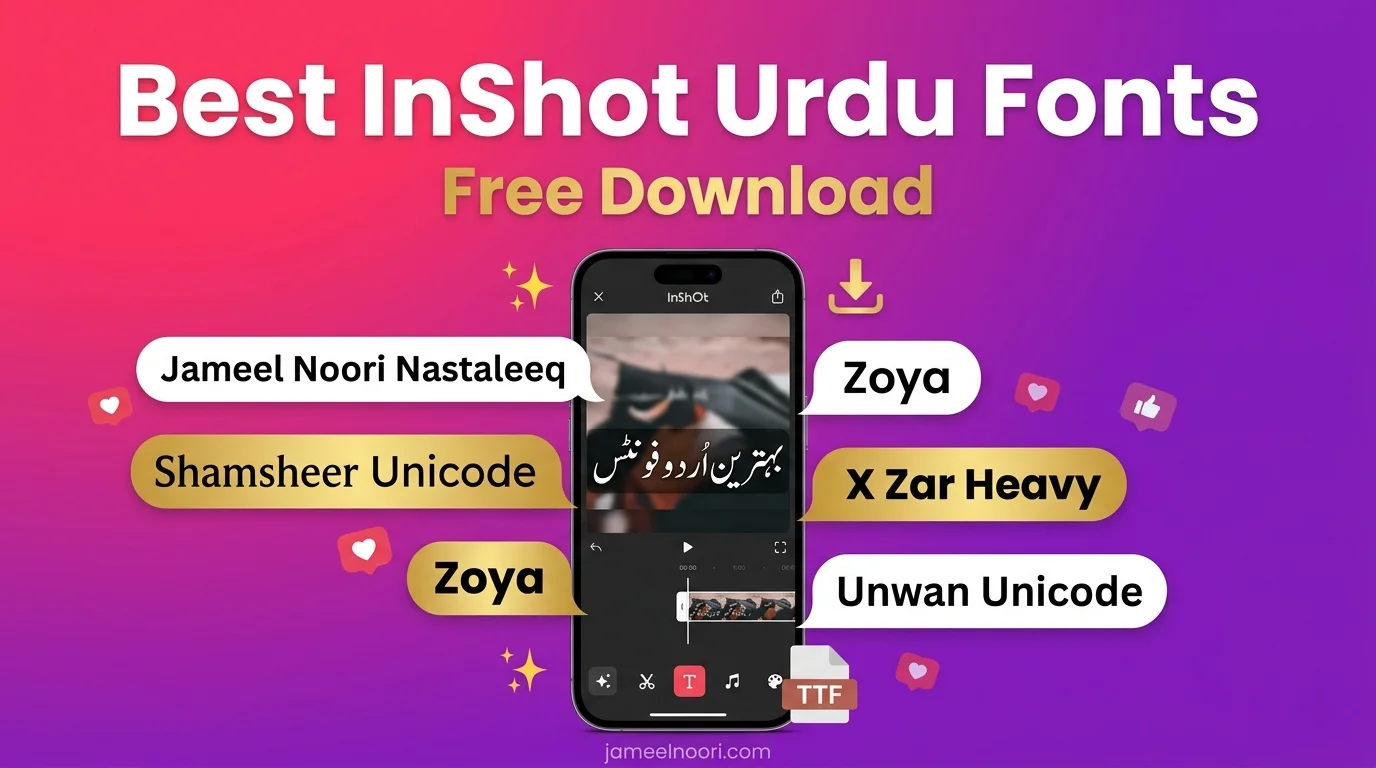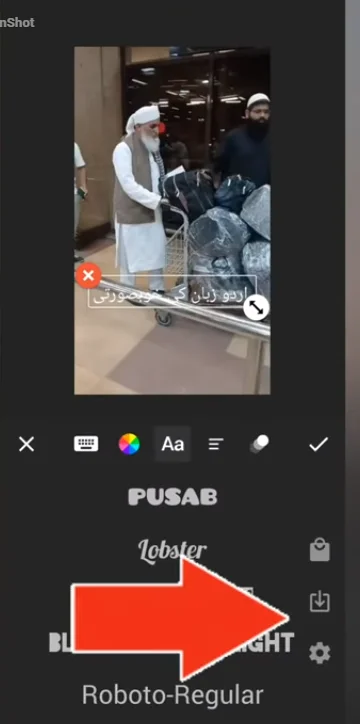
InShot Urdu Fonts
Best InShot Urdu Fonts: Free Download Guide
So, you want to make your InShot videos look truly professional with beautiful Urdu text, right? Well, you’ve come to the right place. I’ve tested dozens of fonts, and here’s the honest truth: the best Urdu fonts for InShot are Jameel Noori Nastaleeq for overall elegance and Shamsheer Unicode for crisp, modern titles. Both are completely free and work perfectly when you download the TTF format. Stick with me, and I’ll show you exactly how to get them working.
Best 3 InShot Urdu Fonts: Jameel Noori Nastaleeq (poetry), Jameel Noori Nastaleeq Bold (titles), Shamsheer Unicode (modern).
Why InShot Users Need Custom Urdu Fonts
Let me be real with you, dear reader. InShot is a fantastic editing app. However, its built-in font library for Urdu is extremely limited. Most default fonts either don’t support Nastaleeq script or break the beautiful flow of Urdu letters, making your video look cheap or unprofessional.
This is a huge problem for creators in Pakistan, India, the UAE, and Saudi Arabia where Urdu content is king.
When I first started editing reels, this frustrated me to no end. Thanks God, I discovered that you’re not stuck with those defaults! By importing your own custom Urdu fonts, you instantly get:
1. Proper Nastaleeq Calligraphy: The elegant, flowing style that Urdu is famous for.
2. Professional Polish: Your videos will instantly look 10x more professional.
3. Higher Engagement: Clean, beautiful text keeps viewers watching longer.
4. Brand Identity: A unique font makes your content recognizable.
Best Urdu Fonts for InShot — Top 6 Picks (Tested & Free)
Alright, let’s get to the main event. Thanks God, all the fonts I’m about to share are completely free and 100% tested by me on InShot v6.x. I use these regularly for my own reels and shorts.
1. Jameel Noori Nastaleeq Regular — Best Overall
Jameel Noori Nastaleeq Regular is a classic, high-quality Nastaleeq-style Urdu font that is renowned for its authentic calligraphic beauty and excellent readability.
Jameel Noori Nastaleeq Regular offers a classic Nastaleeq design for beautiful Urdu writing and digital content.
This is my absolute favorite. What a nice font this is! The letters flow into each other beautifully, just like handwritten Urdu poetry. I use it for almost all my storytelling content.
• Why it works in InShot: It maintains its elegant shape even when scaled down for text in the corner of a reel.
• Best Use Case: Perfect for Instagram Reels, TikTok videos, and WhatsApp status updates with poetry, Islamic quotes, or emotional storytelling.
2. Jameel Noori Kasheeda Regular  — Best for Titles
Jameel Noori Nastaleeq Bold is a heavier, high-contrast variant of the classic Nastaleeq style, designed specifically for maximum impact in video titles.
Need your text to really pop? This is the one. The thick strokes grab attention instantly, even on bright, busy backgrounds.
• Why it works in InShot: The bold weight ensures perfect legibility in compressed video formats like YouTube Shorts.
• Best Use Case: Ideal for YouTube Shorts titles and eye-catching video thumbnails.
3. Shamsheer Unicode — Best for Modern, Clean Text
Shamsheer Unicode is a crystal-clear, Suls-calligraphy-inspired Urdu font that offers exceptional sharpness and a modern, professional feel.